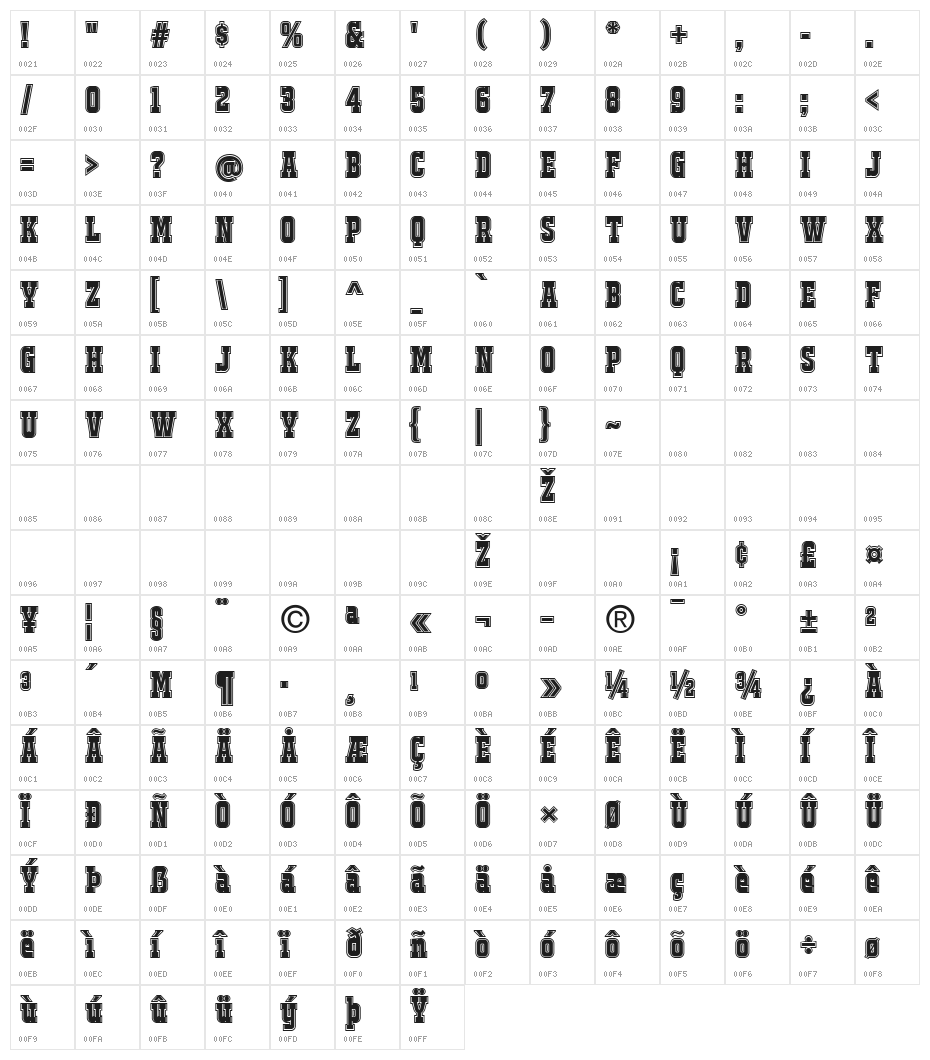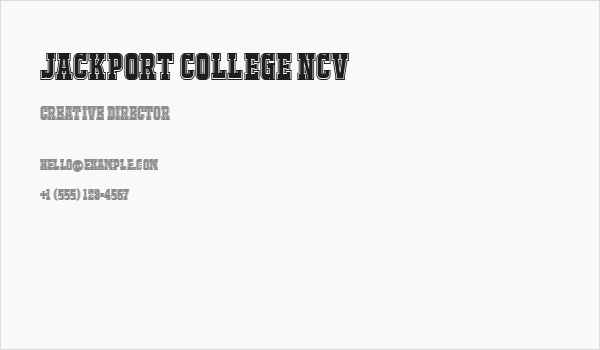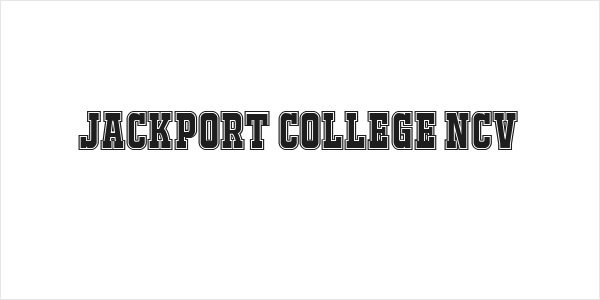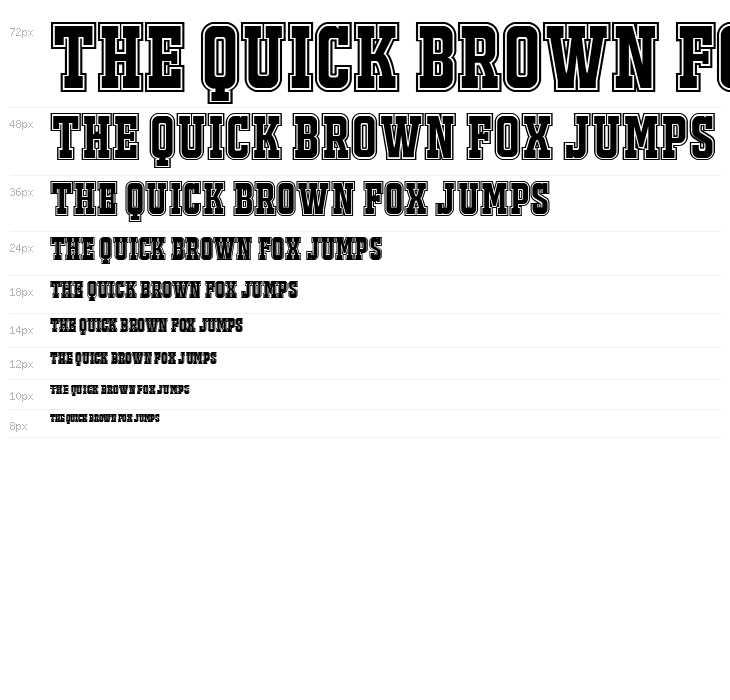
JACKPORT COLLEGE NCV Font
JACKPORT COLLEGE NCV Description
This font features a bold, collegiate style with a strong presence. The letters are uppercase and have a double outline, giving them a three-dimensional effect. The strokes are thick and uniform, contributing to a robust and impactful appearance. The characters are evenly spaced, ensuring readability and clarity. This font is reminiscent of traditional varsity or sports team lettering, often used to convey strength and team spirit. The numbers and special characters follow the same bold and outlined style, maintaining consistency throughout the set.
| Proposed Projects | Ideal for sports team branding, school merchandise, event posters, and any project requiring a bold, collegiate aesthetic. |